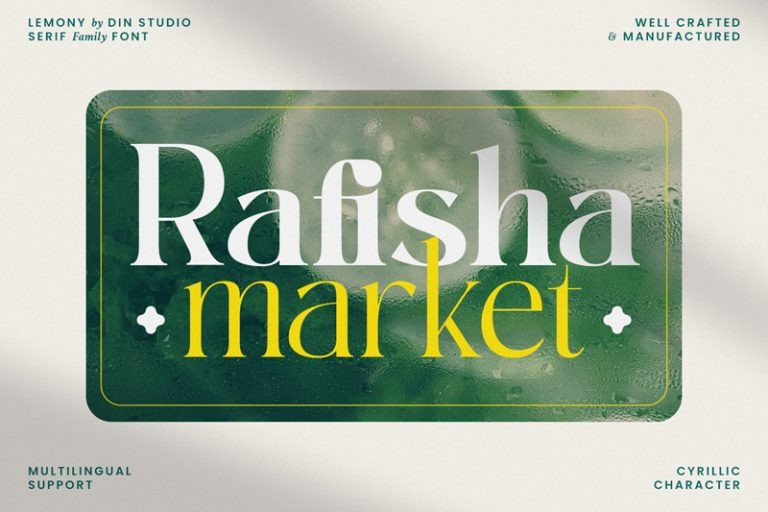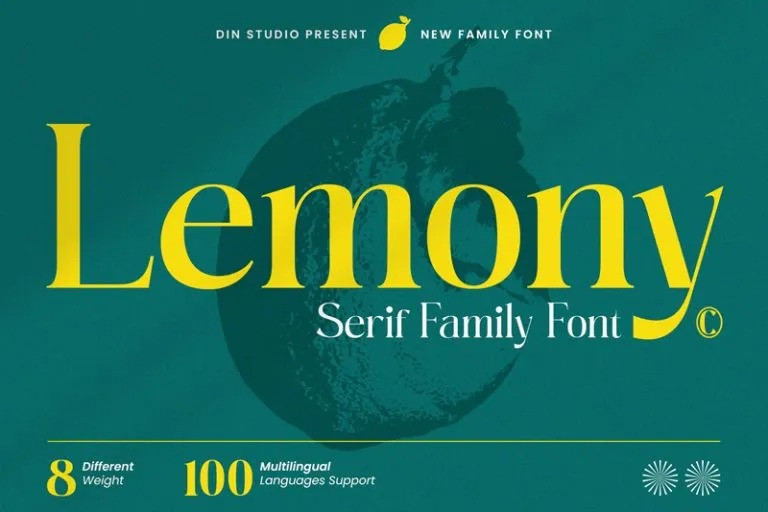
Lemony Font
Lemony Serif Font is a serif font family in 8 different volume options expressing formality and elegance in your designs. Its family character is that it has small lines in horizontal or vertical forms on the letter body, easing readers to read the letter as the lines guide readers’ attention to the reading directions. As a result, you may use this font on any text sizes. In addition to the font weight variations, you will have freedom of how and where you should use the font.